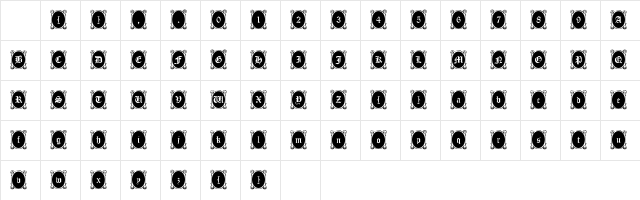
Looking Glass Regular
Design Context for Looking Glass
Looking Glass is a composed and adaptable typeface that performs quietly and consistently across a wide range of design contexts.